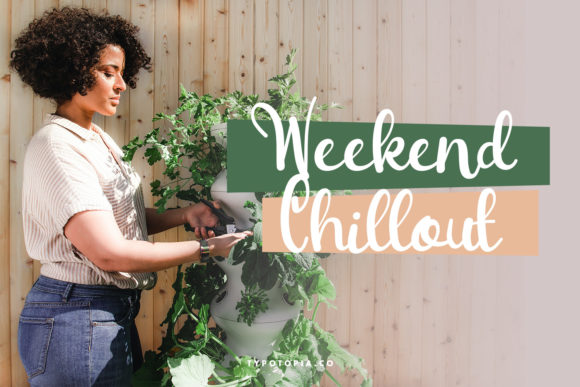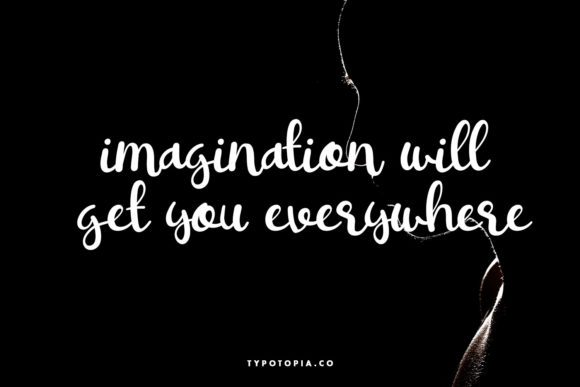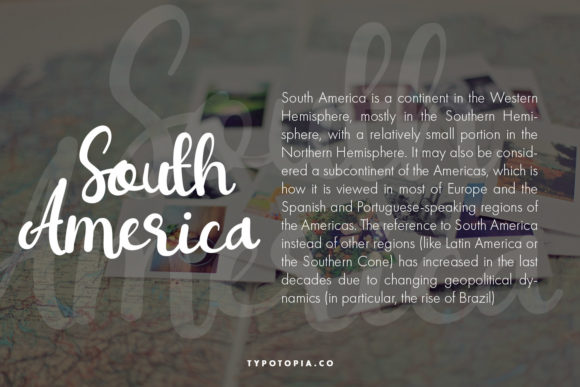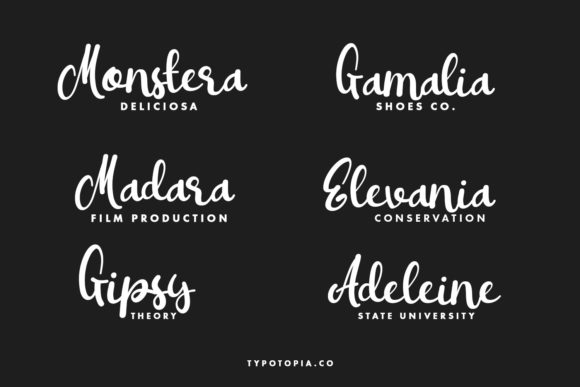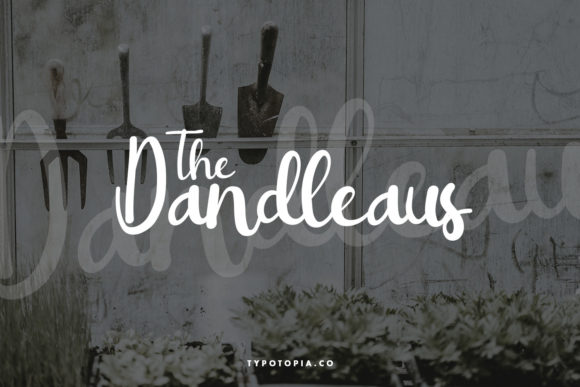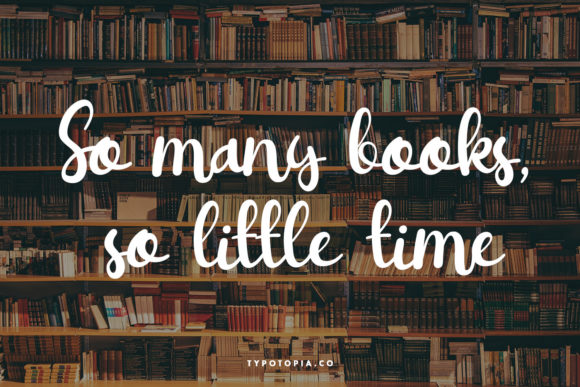
Discover the Magic of Arsalia Font
Have you ever been browsing through a beautiful wedding invitation and stopped for a moment, mesmerized by the elegant handwriting? For designers, those moments are the spark that ignites creativity. The intricate details, the flowing curves, and the sense of romance that comes with it – it’s the perfect combination to make our hearts skip a beat. And, it’s precisely this kind of magic that the Arsalia Font brings to the table.
Arsalia Font is a cursive and graceful script font that’s designed to make a statement. Whether you’re creating gorgeous wedding invitations, beautiful stationery art, or eye-catching social media posts, this font is sure to add a touch of elegance and sophistication. For designers, Arsalia Font is a valuable tool that offers endless possibilities for creativity and self-expression.
So, what are you waiting for? Dive into the world of Arsalia Font and discover the endless possibilities it has to offer. With its ravishing style and versatility, this font is sure to become your new go-to choice for all your design needs.
- Unique Characteristics: The Arsalia Font features a unique blend of modern and vintage elements, with intricate details and ornate flourishes that set it apart from other fonts.
A Designer’s Review: Arsalia Font
Overall, I found the Arsalia Font to be a decent choice for designers looking for a clean and elegant script font. ✨ One of the things that works well with this font is its versatility – it can be used for a wide range of applications, from invitations to logos. ✨ The font’s flowing lines and subtle flair give it a touch of sophistication, making it perfect for luxury brands or high-end marketing materials.
However, there are some limitations to consider. ⚠️ The font’s character set is somewhat limited, which can make it difficult to use for languages that require a wide range of special characters. ⚠️ Additionally, the font’s lines can sometimes appear a bit too thin or delicate, which may not be ideal for large-scale applications.
- Versatile design suitable for various applications
- Flawless lines and subtle flair give it a touch of sophistication
- Limited character set may cause issues with languages requiring special characters
- Thin lines may not be suitable for large-scale applications
Overall, I would recommend the Arsalia Font for designers who need a clean and elegant script font for specific projects. While it may have its limitations, it can still be a valuable addition to any designer’s toolkit.